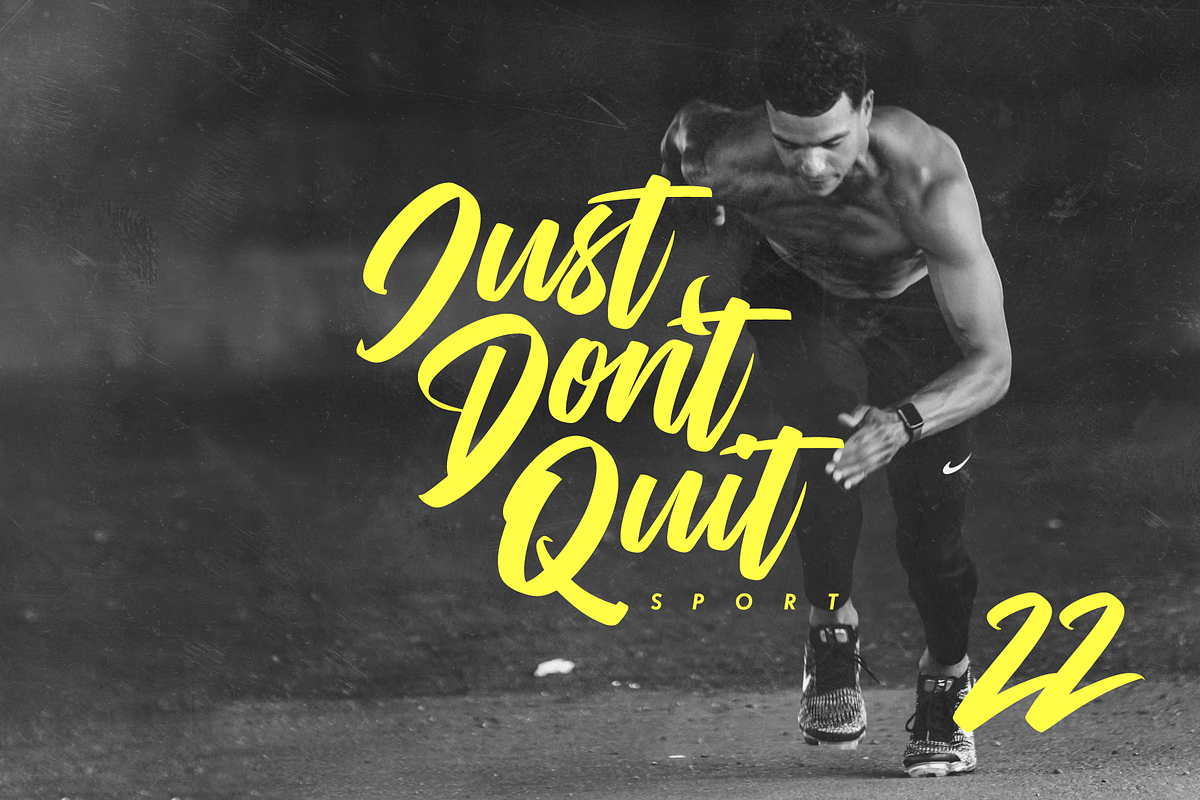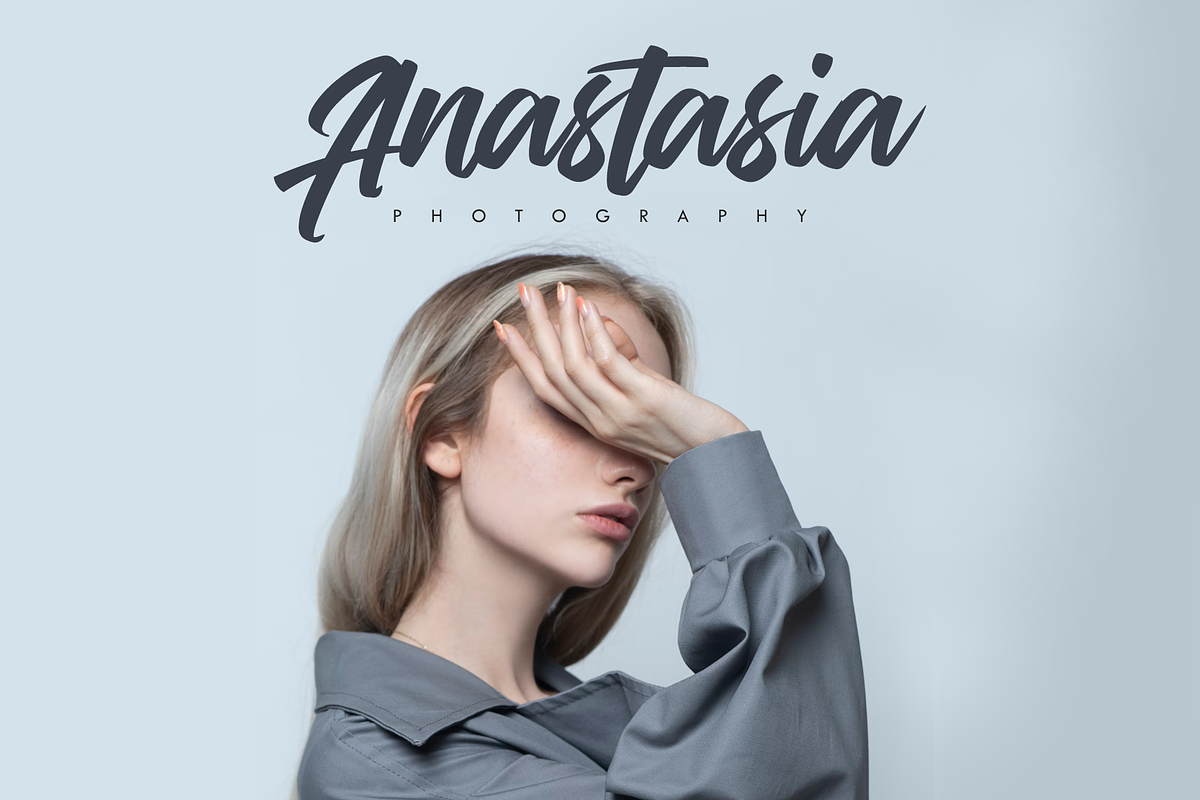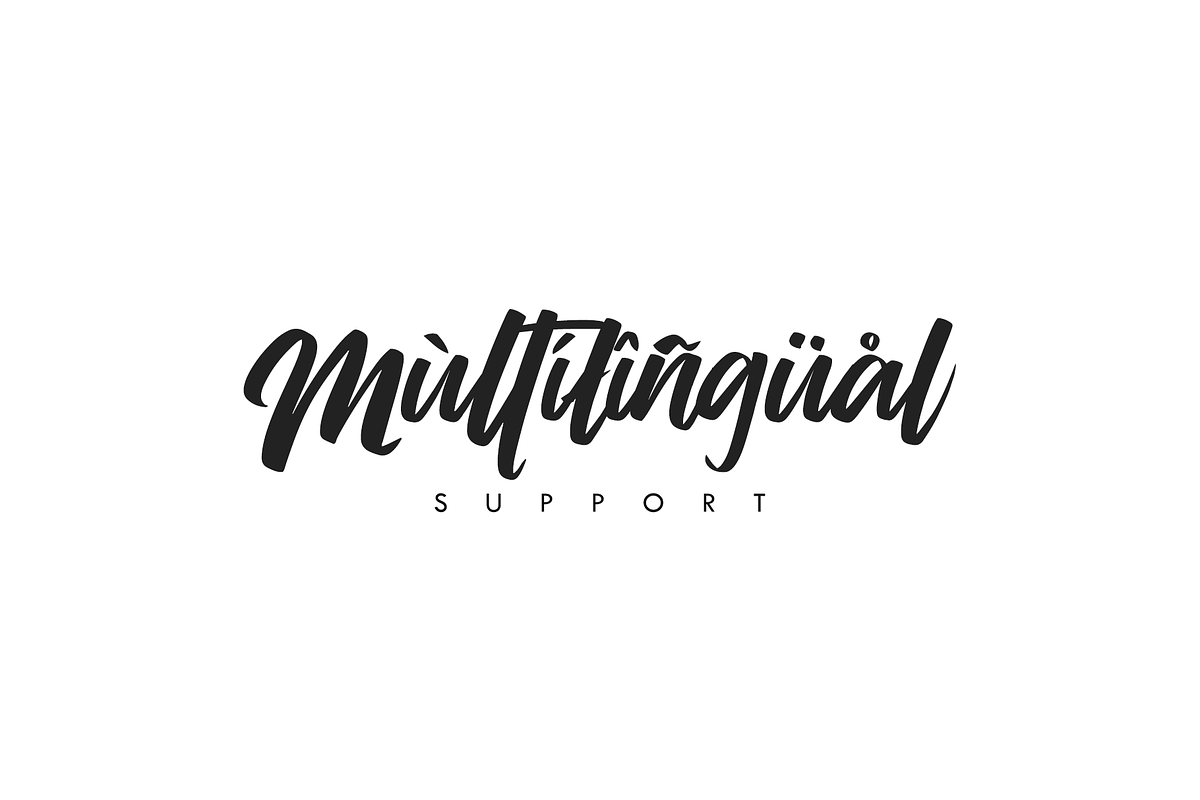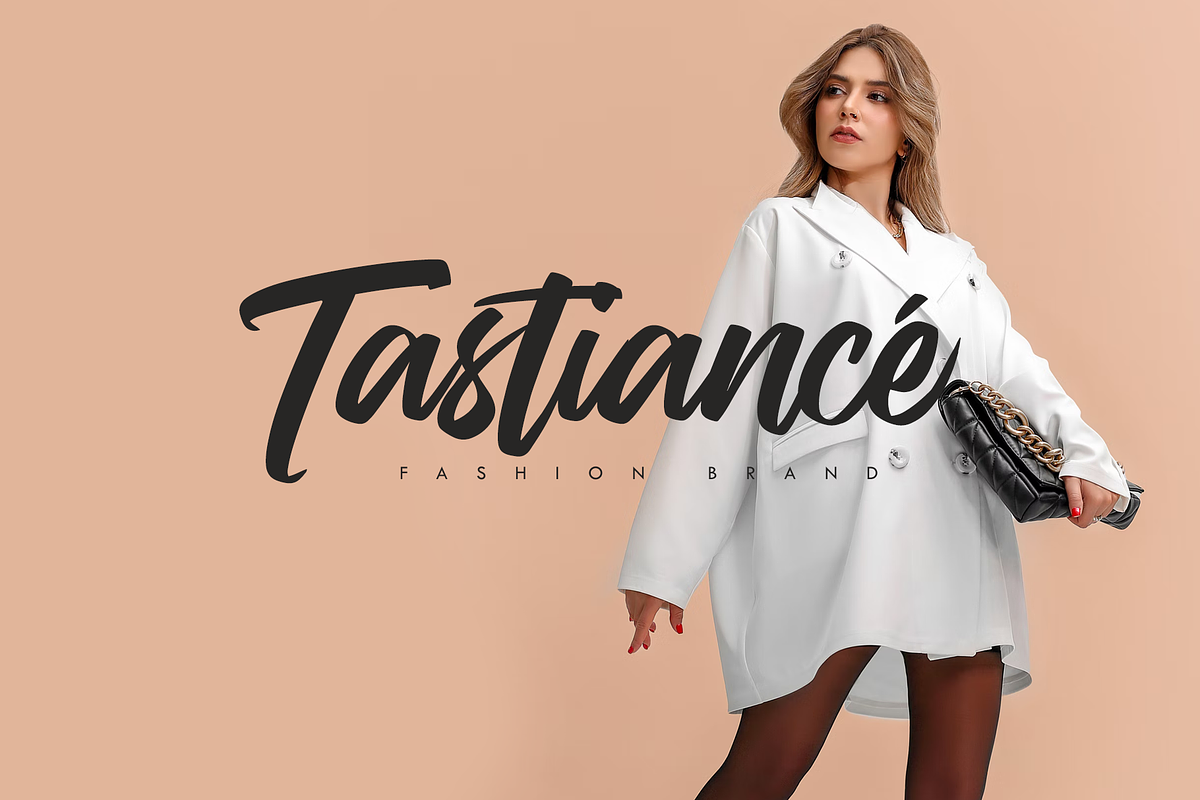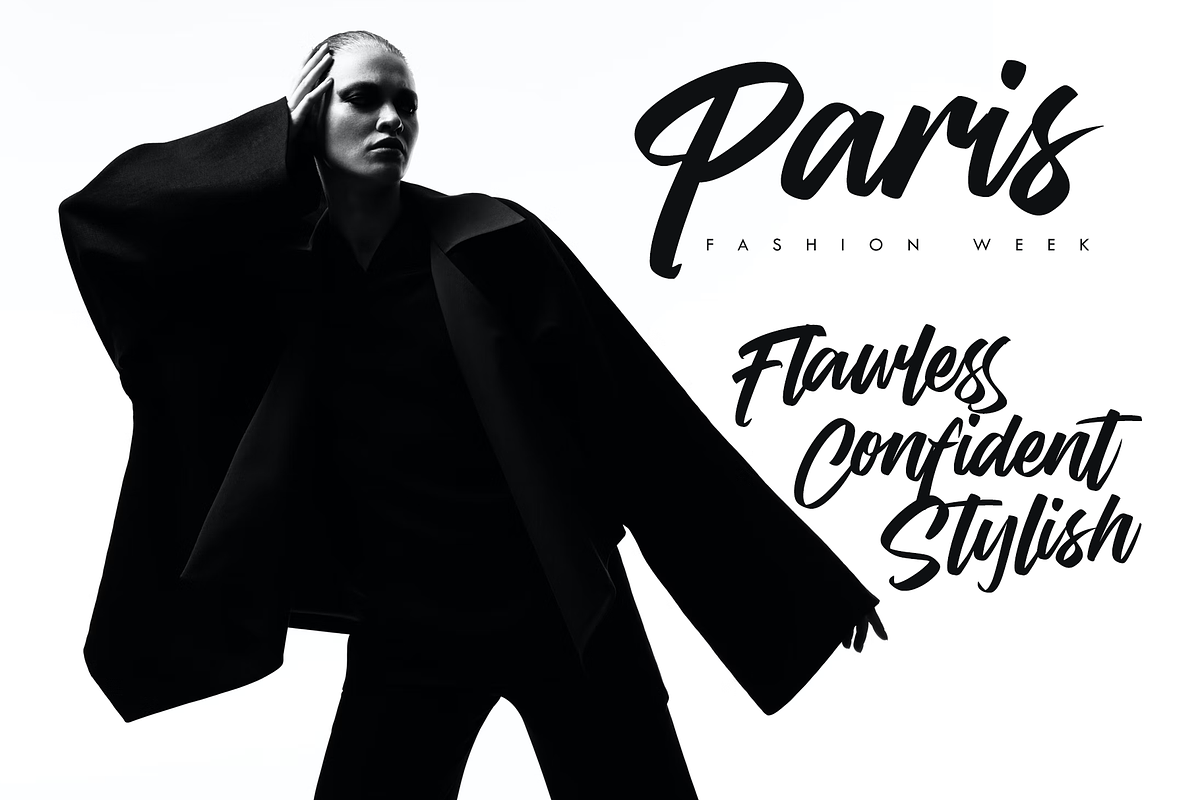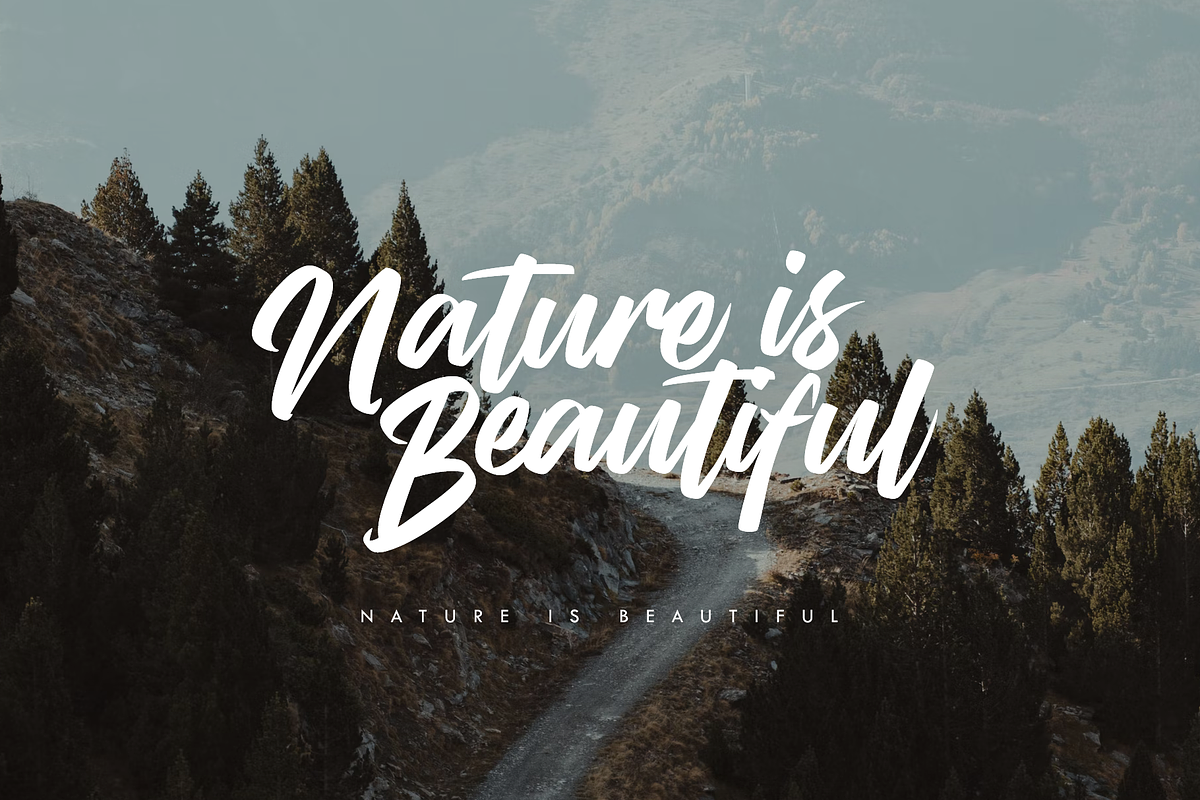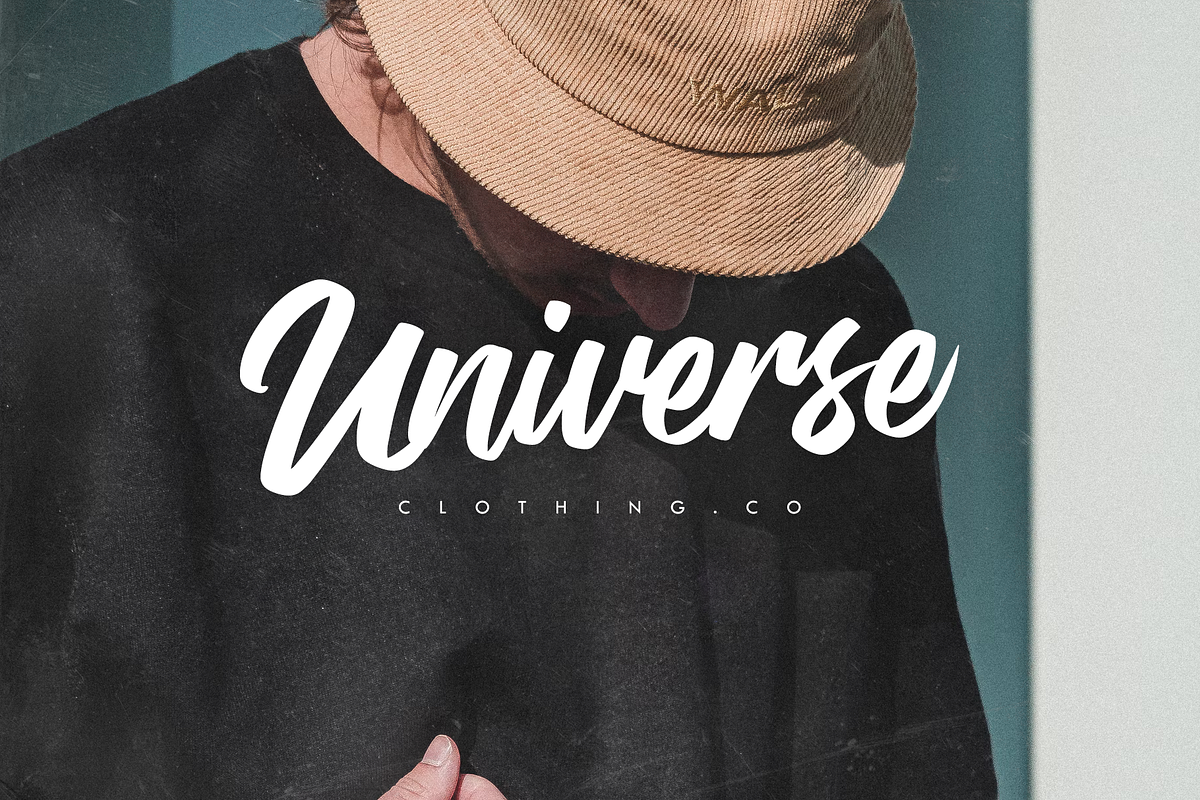
Vendetta Handstylish Font
Vendetta Handstylish Font by Alif Devan R. is a font selected for branding, posters, packaging, typography.
Why Vendetta Handstylish Font is worth a look
Vendetta Handstylish Font by Alif Devan R. fits naturally into Branding, posters, packaging, typography.